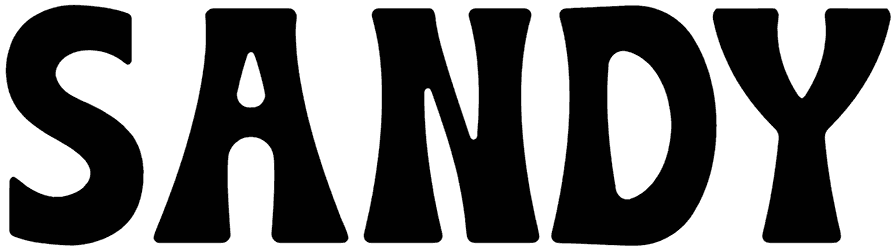
Sandy Font
If you are planning to create a vintage and warm outward for your design, the Sandy font can be a good idea. With a bulky and soft mood, this groovy font would be a nice showcase for lots of novel ideas. There is no support for lowercase letters, but this retro font can be used for many designs, namely posters, t-shirts, packaging, branding, and the like.